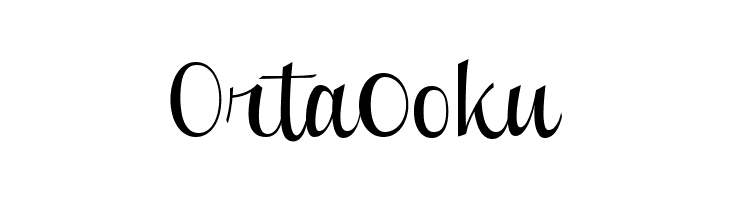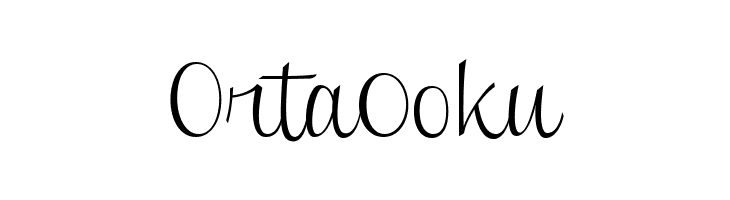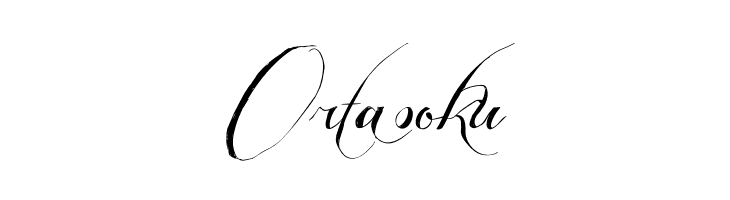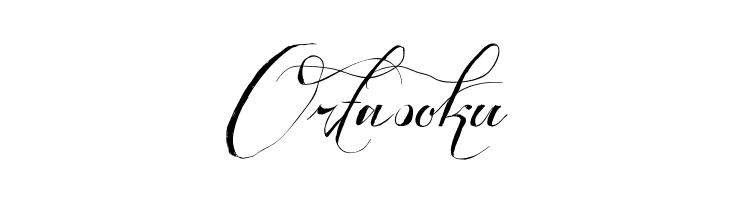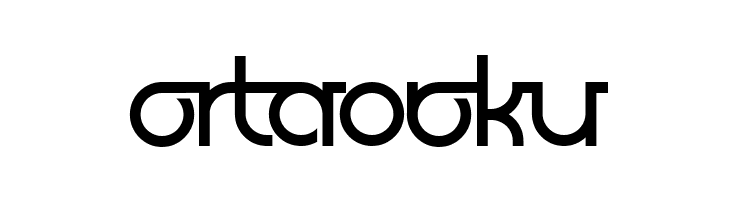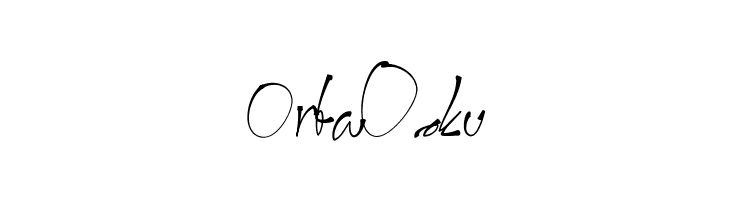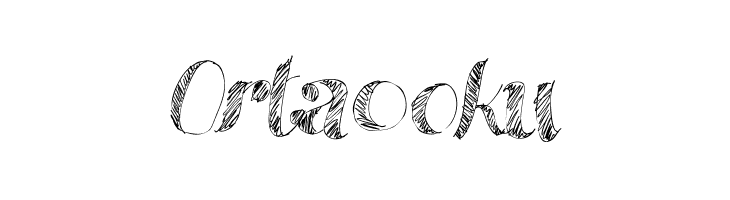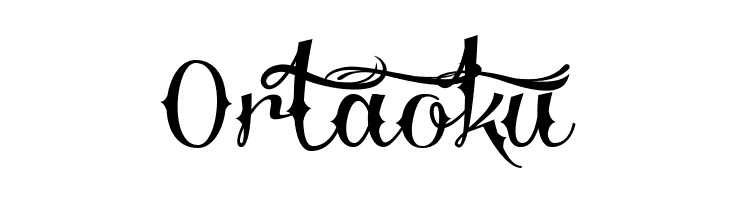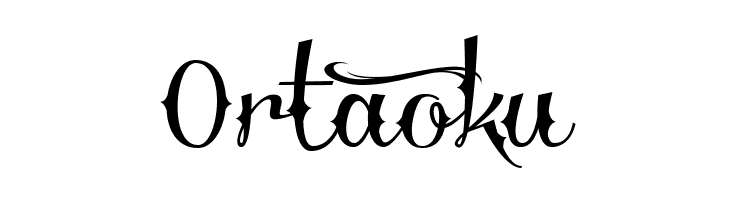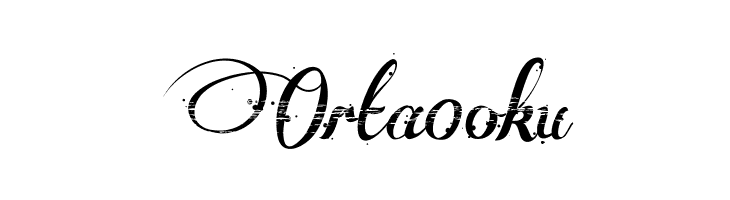
A bold and expressive script font with dynamic curves and strong visual impact.
A playful and elegant script font with a modern twist.
An elegant script font with ornate swashes and high contrast strokes.
An elegant script font with flowing, interconnected letters and intricate swashes.
A bold, geometric font with a futuristic and modern style.
A playful, handwritten font with irregular shapes and dynamic line thickness.
An ornate script font with decorative swirls and elegant flourishes.
An ornate script font with elaborate swashes and decorative elements.
An artistic, calligraphic font with elaborate curves and decorative elements.
An ornate, calligraphic font with intricate swirls and flourishes.